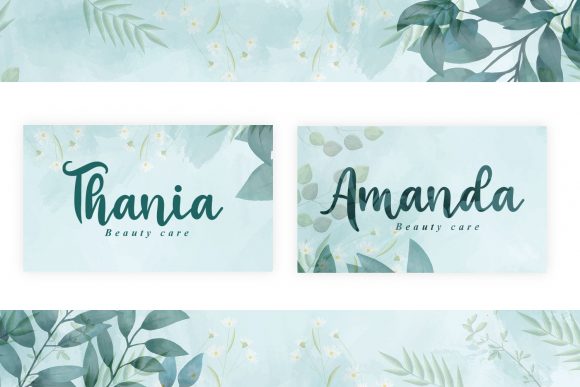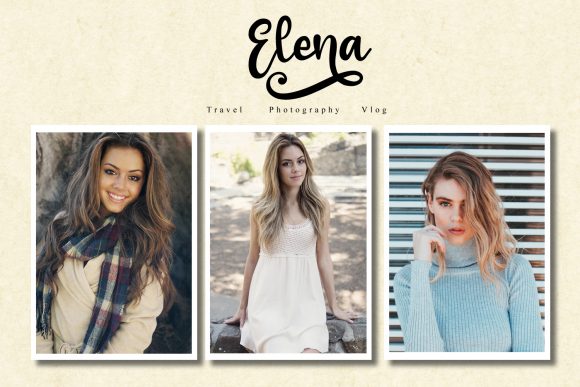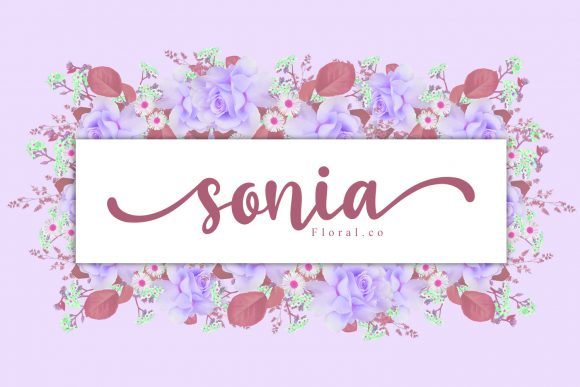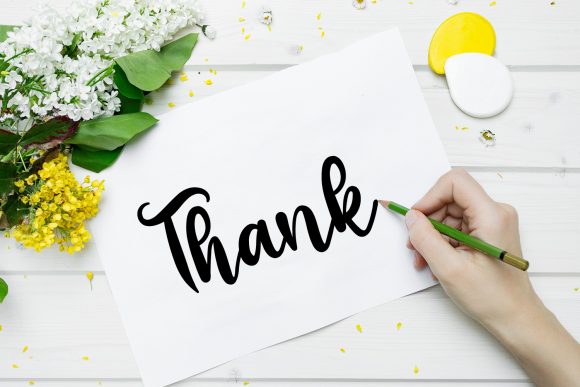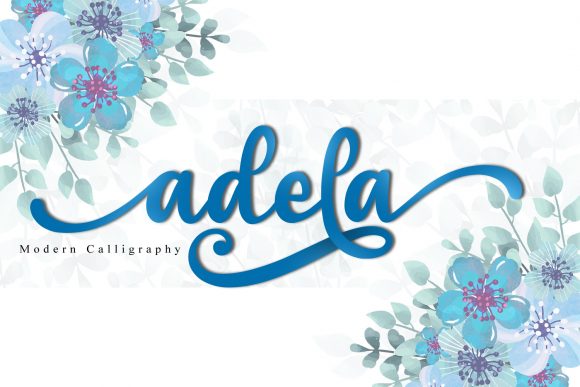
Introducing Adela Font: A Whimsical and Genuine Script Font
Are you looking for a font that can add a touch of magic to your creative projects? Look no further than Adela Font, a beautifully designed script font that is sure to make your creations stand out. In this article, we’ll take a closer look at Adela Font, its features, and how it can elevate your designs to new heights.
What is Adela Font?
Adela Font is a whimsical and genuine script font that has been expertly designed to add a touch of elegance and sophistication to your creations. With its flowing lines and intricate details, Adela Font is perfect for a variety of design projects, from wedding invitations and branding materials to social media graphics and more.
Key Features of Adela Font
So, what makes Adela Font so special? Here are just a few of its key features:
• Whimsical and genuine design: Adela Font has a unique and authentic design that is sure to capture the attention of your audience.
• PUA encoded: Adela Font is PUA (Private Use Area) encoded, which means that you can access all of the glyphs and swashes with ease.
• Multilingual support: Adela Font supports multiple languages, making it a great choice for designers who work with clients from around the world.
How to Use Adela Font
Adela Font is incredibly versatile and can be used for a wide range of design projects. Here are just a few ideas to get you started:
• Wedding invitations and stationery: Adela Font is perfect for creating beautiful and elegant wedding invitations, save-the-date cards, and other stationery.
• Branding and packaging: Use Adela Font to create a unique and memorable brand identity for your clients, including logos, business cards, and packaging.
• Social media graphics: Add a touch of personality to your social media graphics with Adela Font, including Facebook posts, Instagram stories, and more.
• Signs and displays: Use Adela Font to create eye-catching signs and displays for events, trade shows, and retail stores.
Tips for Getting the Most Out of Adela Font
Here are a few tips for getting the most out of Adela Font:
• Experiment with different sizes and colors: Adela Font looks great in a variety of sizes and colors, so don’t be afraid to experiment and find the perfect combination for your design.
• Use the glyphs and swashes: Adela Font includes a range of glyphs and swashes that can add an extra touch of elegance and sophistication to your designs.
• Pair with other fonts: Adela Font pairs well with a range of other fonts, so try combining it with a sans-serif font for a bold and eye-catching look.
• What is Adela Font? Adela Font is a whimsical and genuine script font designed for use in a variety of creative projects.
• Is Adela Font PUA encoded? Yes, Adela Font is PUA encoded, making it easy to access all of the glyphs and swashes.